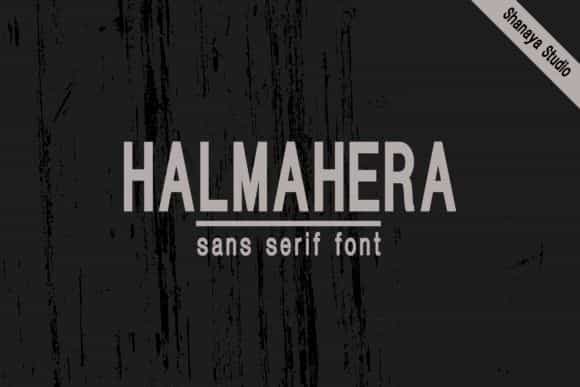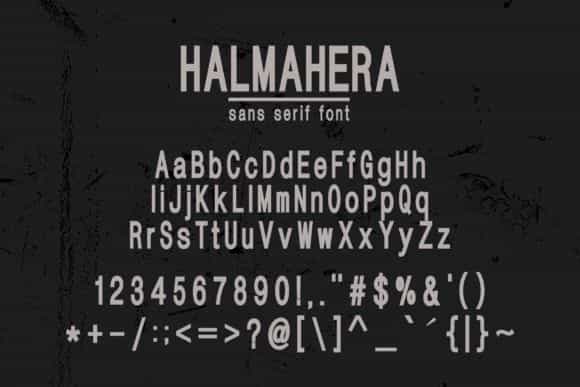
Halmahera is a sweet and cool sans serif font that has a distinct character. Feel the smoothness of its texture and make any idea you have as unique as you are! Great for most used headings, body copy, and display ads. Another important font and a good addition to your collection, this typeface will help to make your project look fresh and minimalist.